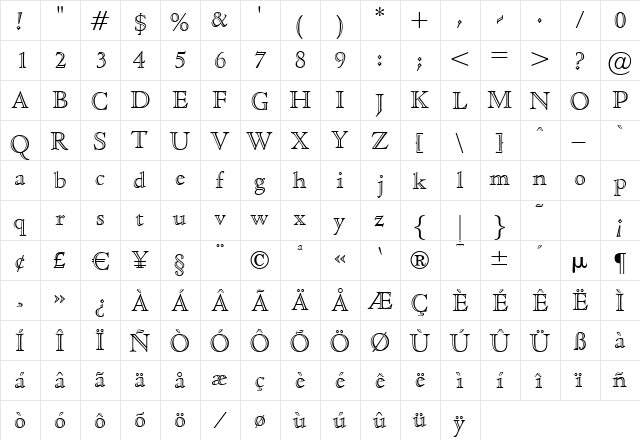
CedarOpenface Regular
Design Context for CedarOpenface Typeface
CedarOpenface takes a measured approach to typography — its balanced proportions and neutral character make it a reliable workhorse for both digital and print work.